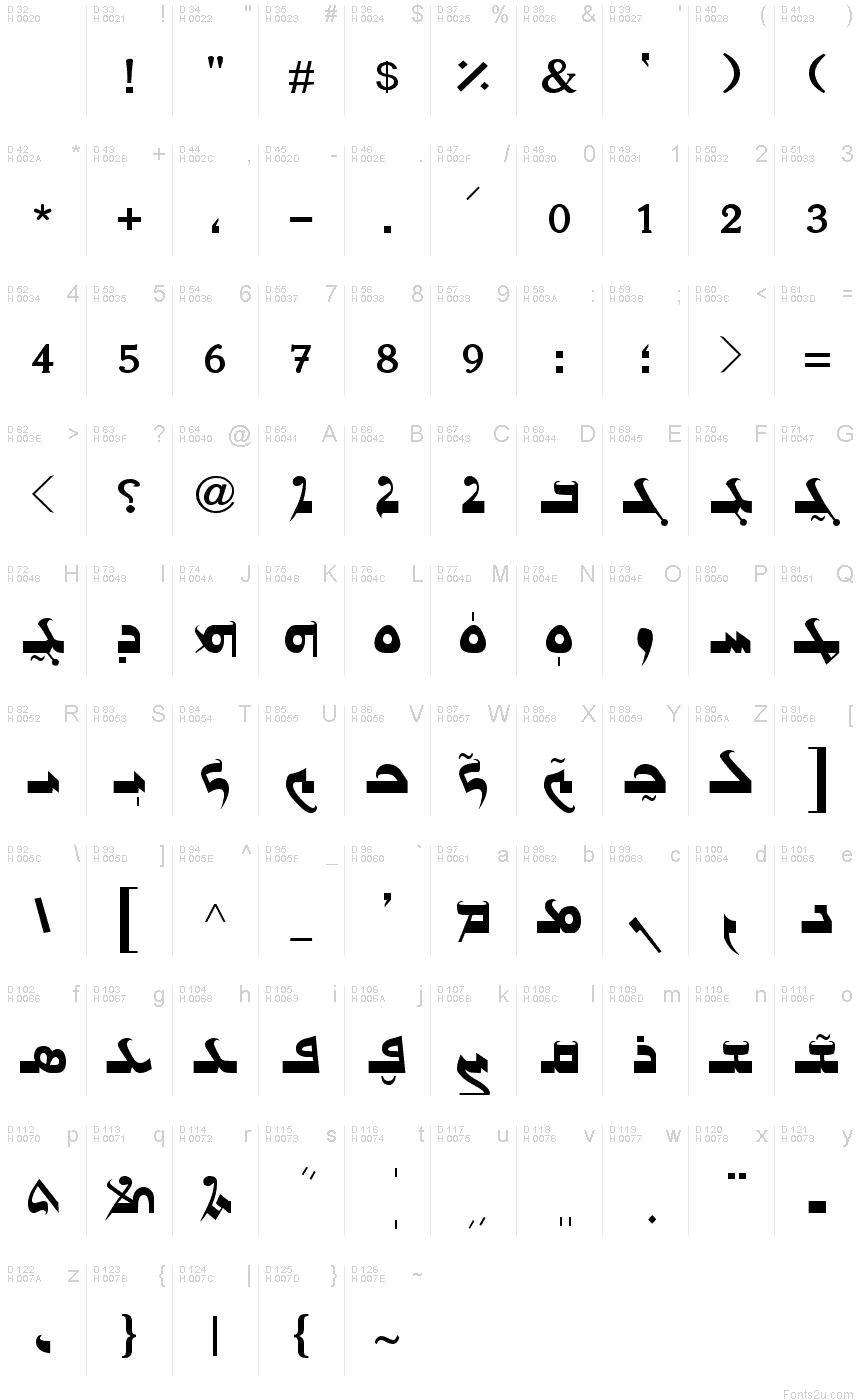
Gabrial Ator Bold
Gabrial Ator Bold by Timm Erickson of the Summer Institute of Linguistics is a free non-Latin script-style display font. Broad horizontal strokes support rounded forms, sharp hooks, and occasional droplet-like endings. The lettering looks dense and strongly directional, with compact marks adding lively variation above and below the main line.
Cultural event posters and language-learning materials both benefit from its emphatic silhouettes and distinctive script character. It is equally suited to museum graphics and educational publishing, where the recurring hooks and suspended dots can become part of a broader decorative motif.
By Timm Erickson, Summer Institute of Linguistics, West Eurasia Group.